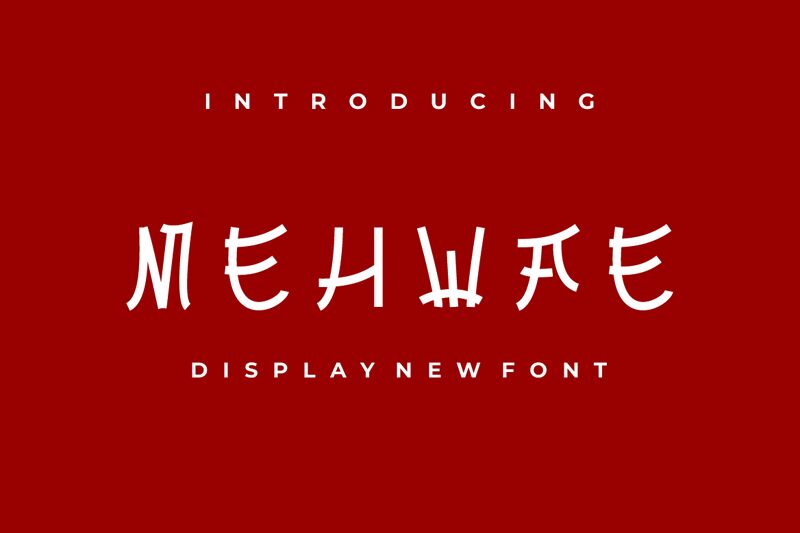
Mehwae font family, by Gilang Ternadho, is an original collection of foreign fonts composed of two font styles. This modern experimental design offers a unique futuristic feel based on a visually striking unconventional appeal. The font is decorative, geometric, abstract, and dynamic adding a contemporary flair to each application. Taking a simple, clever, and imaginative approach, the font family manages to combine elegance with a bit of mystery to capture the audience’s attention.
The simulating unusual and untraditional letter design of this typography is perfect for menus, video and mobile games, posters, website headers, book covers, or apps. Whether used in the entertainment field, in a marketing purpose, or in fine arts, it’s guaranteed to stand out. Try placing it over black and white to enjoy the full visual impact of its style.